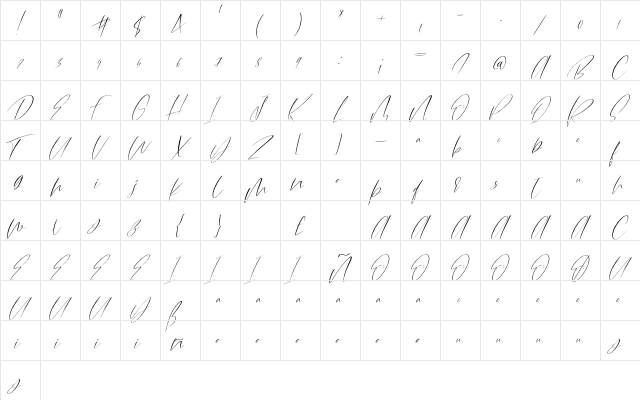
Amulet Script Font Regular
Design Context for Amulet Script Font Typeface
Amulet Script Font brings a calligraphic fluidity to the page — its connecting strokes and expressive curves give it an unmistakably human quality.
Font Pairing: Combine Amulet Script Font with a simple geometric sans for maximum contrast — the tension between flowing curves and clean structure is a classic typographic pairing.
Pro Tip: Pair Amulet Script Font with a clean sans-serif for supporting text. The contrast between fluid script and geometric structure creates an elegant typographic hierarchy.